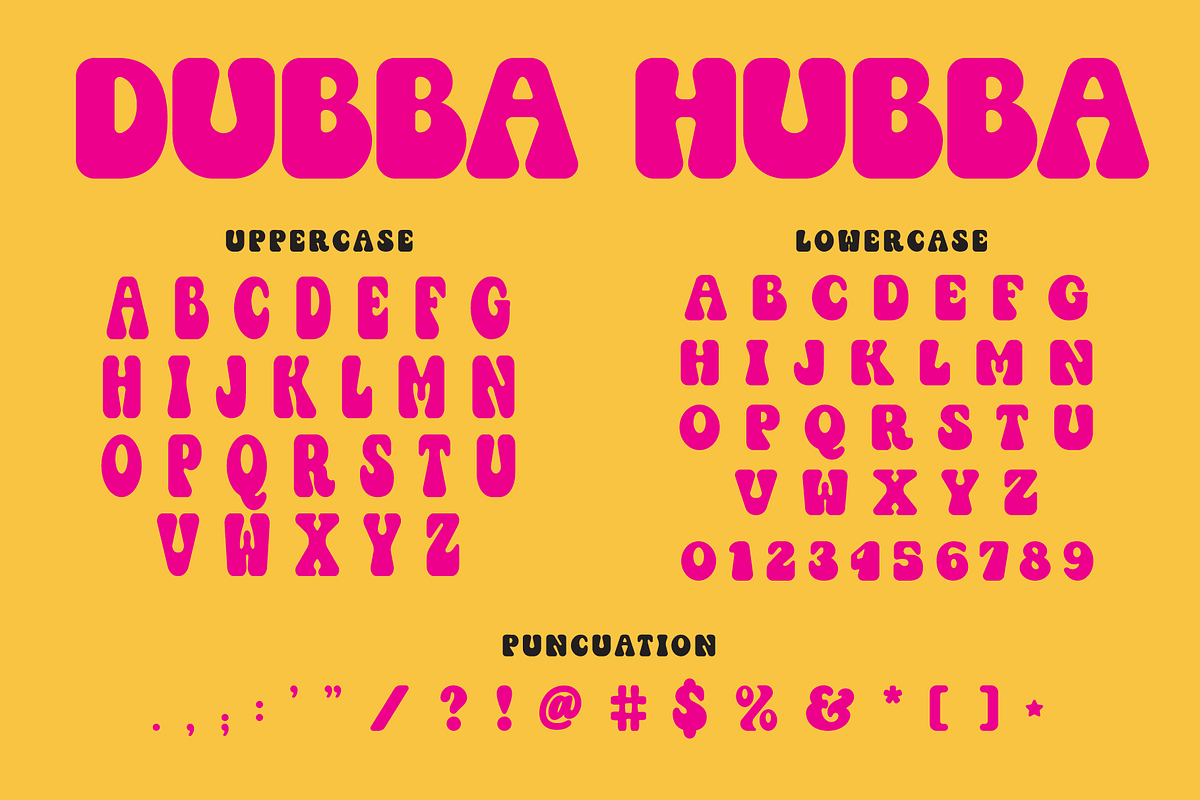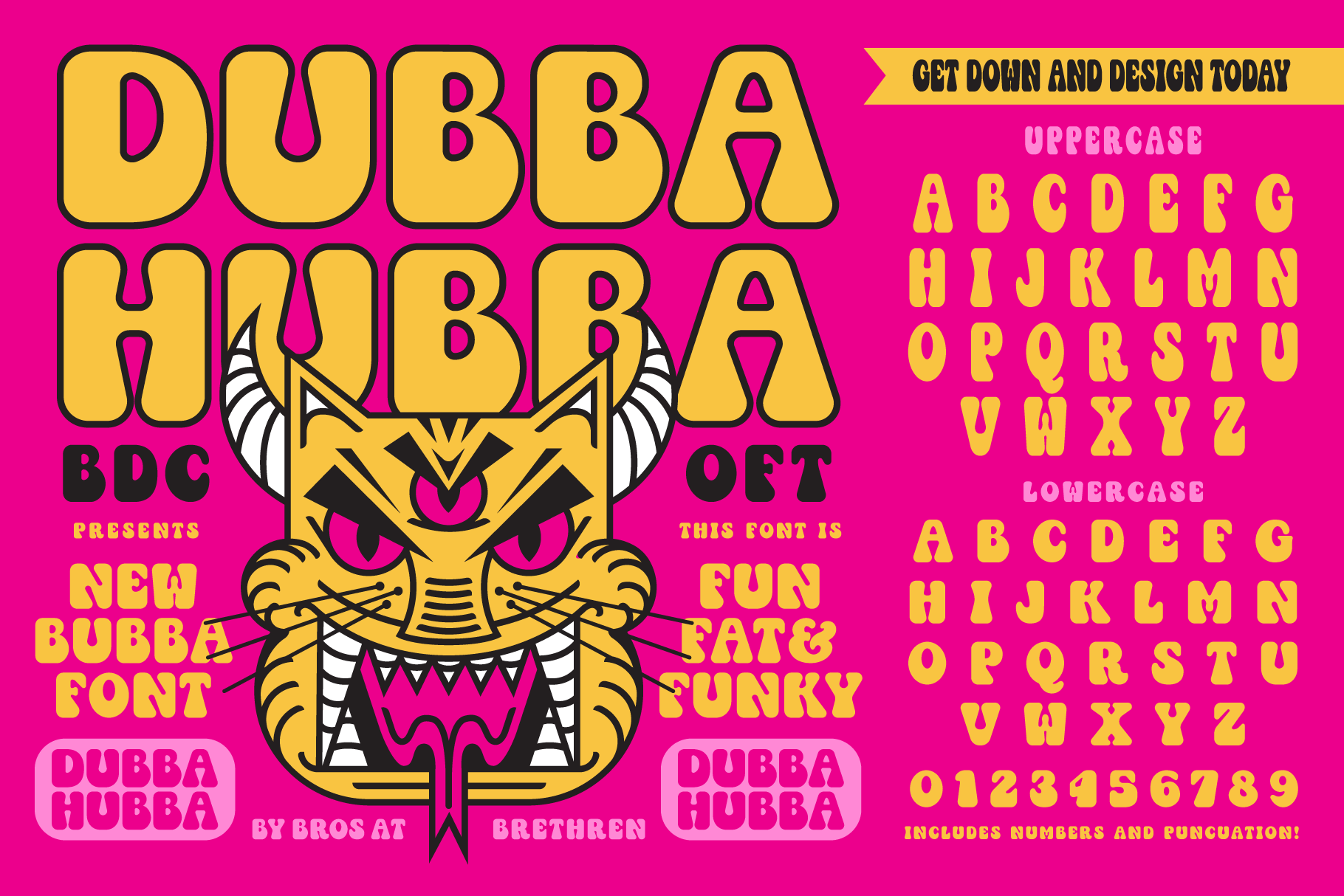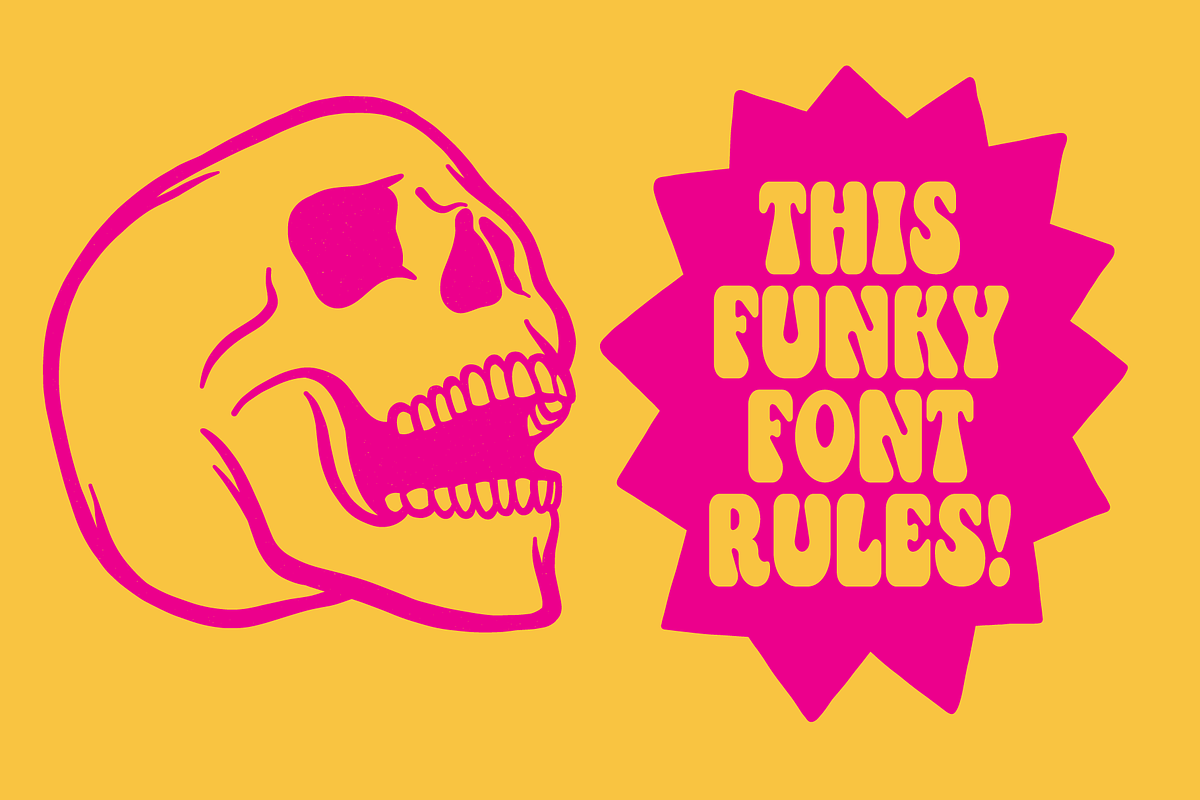
Dubba Hubba Display Font
It’s big and chewy. Dubba Hubba is a thick funky display font that comes in small caps and tall caps. Numbers and punctuation included.